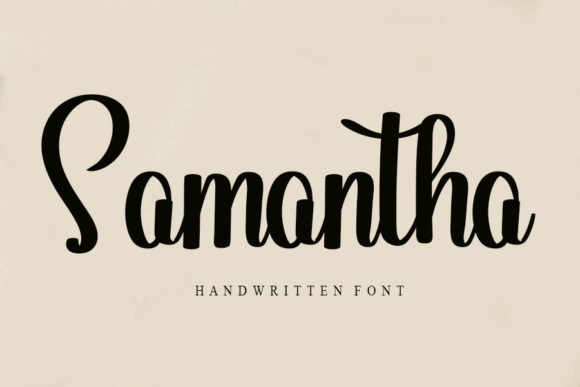
About Samantha Font
“Samantha” introduces itself as a friendly handwritten font, meticulously designed to become a true favorite. This font maintains its classy calligraphic influences while embracing a contemporary and fresh feel, making it a versatile and appealing choice for a variety of creative projects.
The friendly demeanor of “Samantha” makes it well-suited for various applications. Picture this font adding a personal touch to greeting cards, invitations, or social media graphics. Its carefully crafted design ensures that each character exudes warmth and approachability, making it a go-to option for projects that require a friendly and inviting tone.
While “Samantha” maintains classic calligraphic influences, its contemporary and fresh feel sets it apart. This balance allows the font to seamlessly integrate into modern design contexts, whether you’re working on branding materials, logos, or digital illustrations. Its versatility extends to a wide range of creative endeavors.
As a true favorite, “Samantha” stands out not only for its friendly aesthetic but also for its ability to adapt to different design needs. Whether you’re creating a logo, designing wedding invitations, or adding a personal touch to social media posts, “Samantha” offers a delightful and approachable typeface that resonates with a contemporary audience.